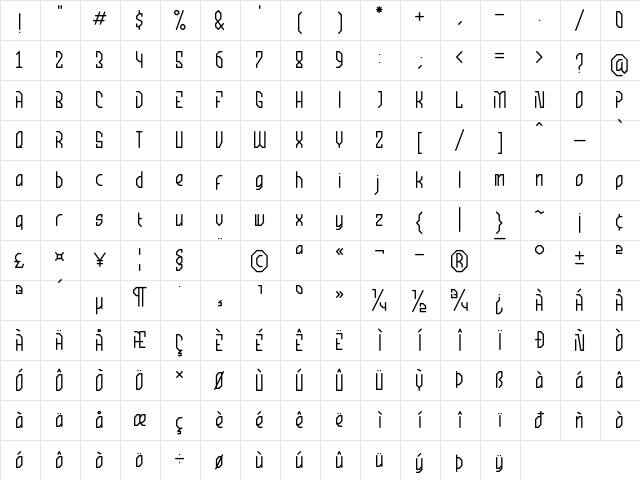
Robo Briant Regular
| Designer | Ondi Indriana |
Design Context for Robo Briant Typeface
Robo Briant is a composed and adaptable typeface that performs quietly and consistently across a wide range of design contexts.